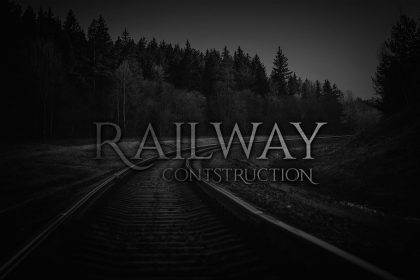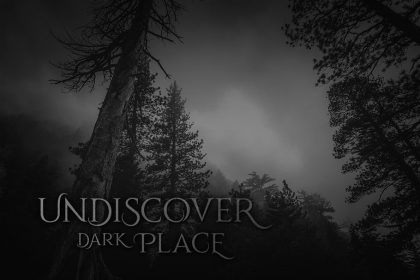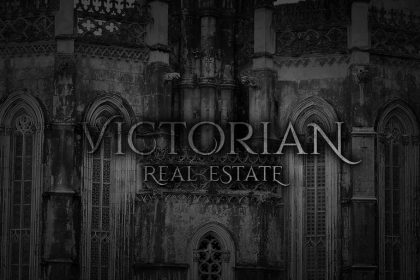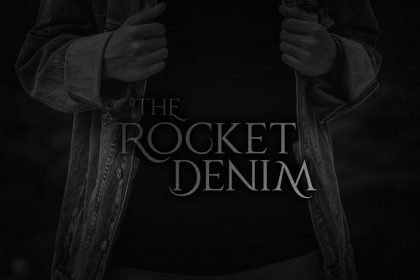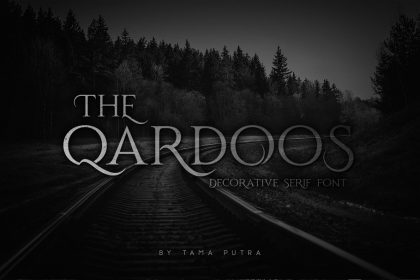
Qardoos Typeface
The most special font today is a font serif. You will enjoy it, and your customers will also be pleased with your products when using this font. This is a modern serif font family whose design refers us to the style of transitional serifs. Introducing Qardoos Font. Qardoos is a display serif typeface. The Qardoos typeface includes multi-lingual and currency support, numerals, and punctuations. Qardoos font is very suitable for your branding project, tshirt printing, book cover, film title and and many more that need vintage taste :).